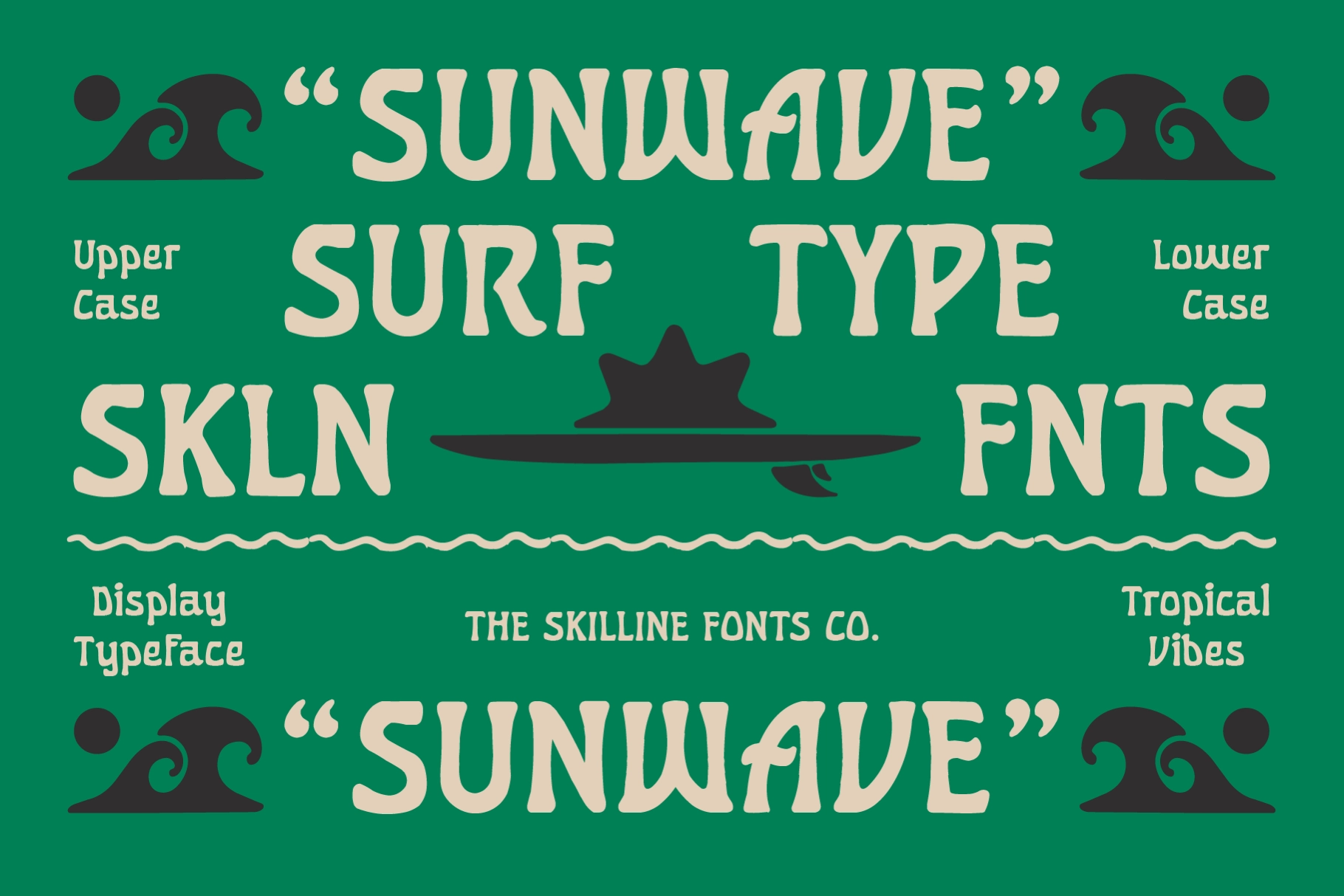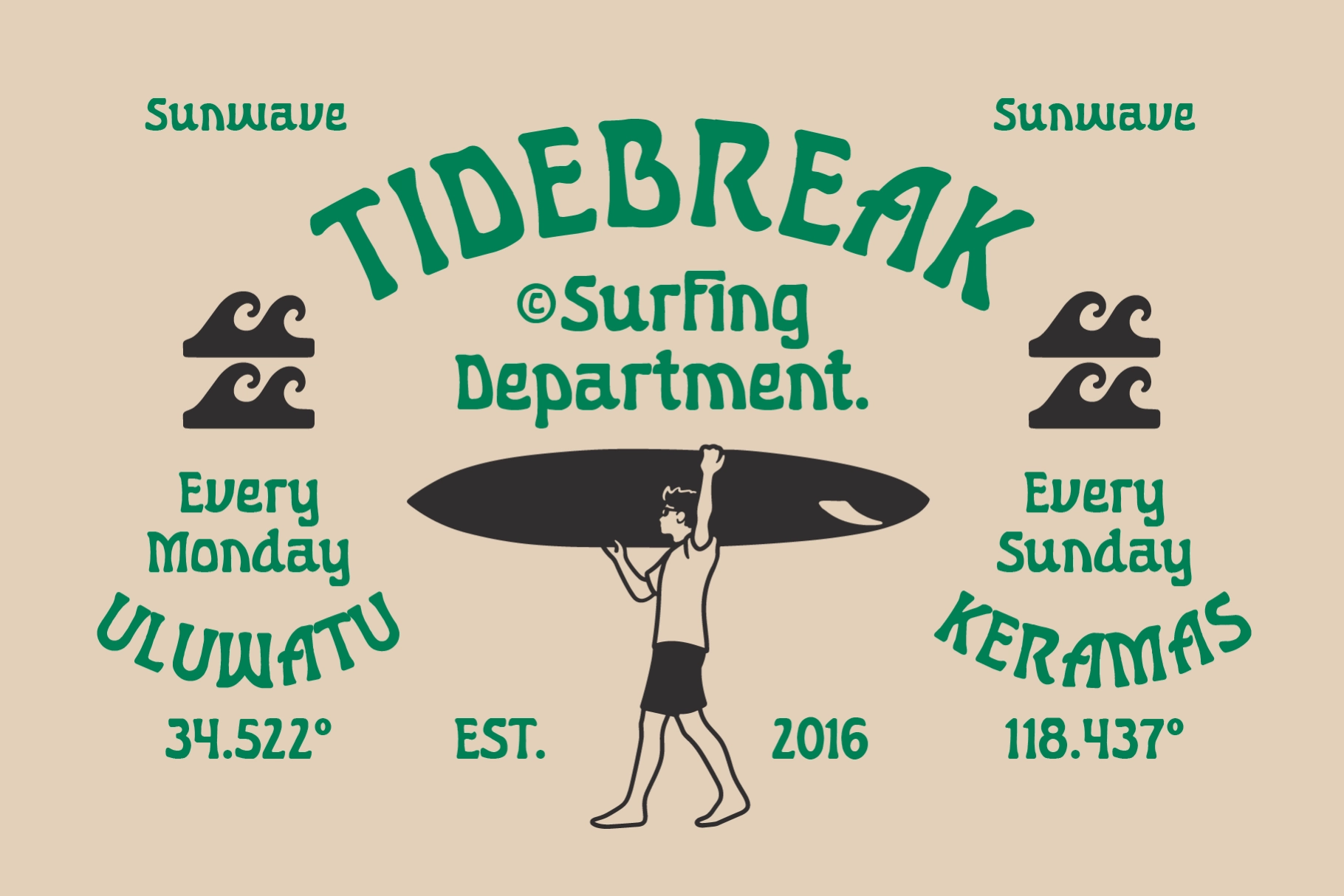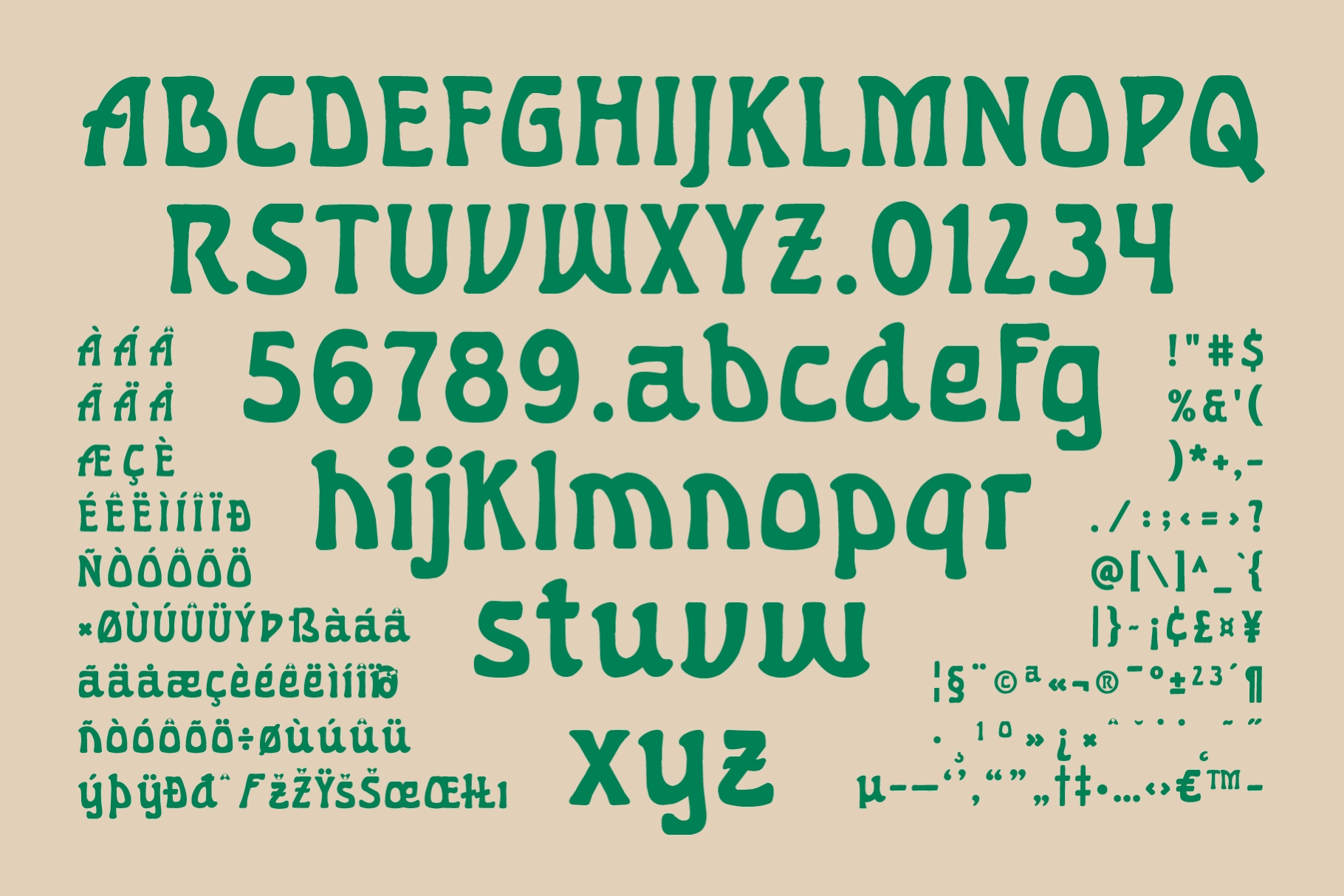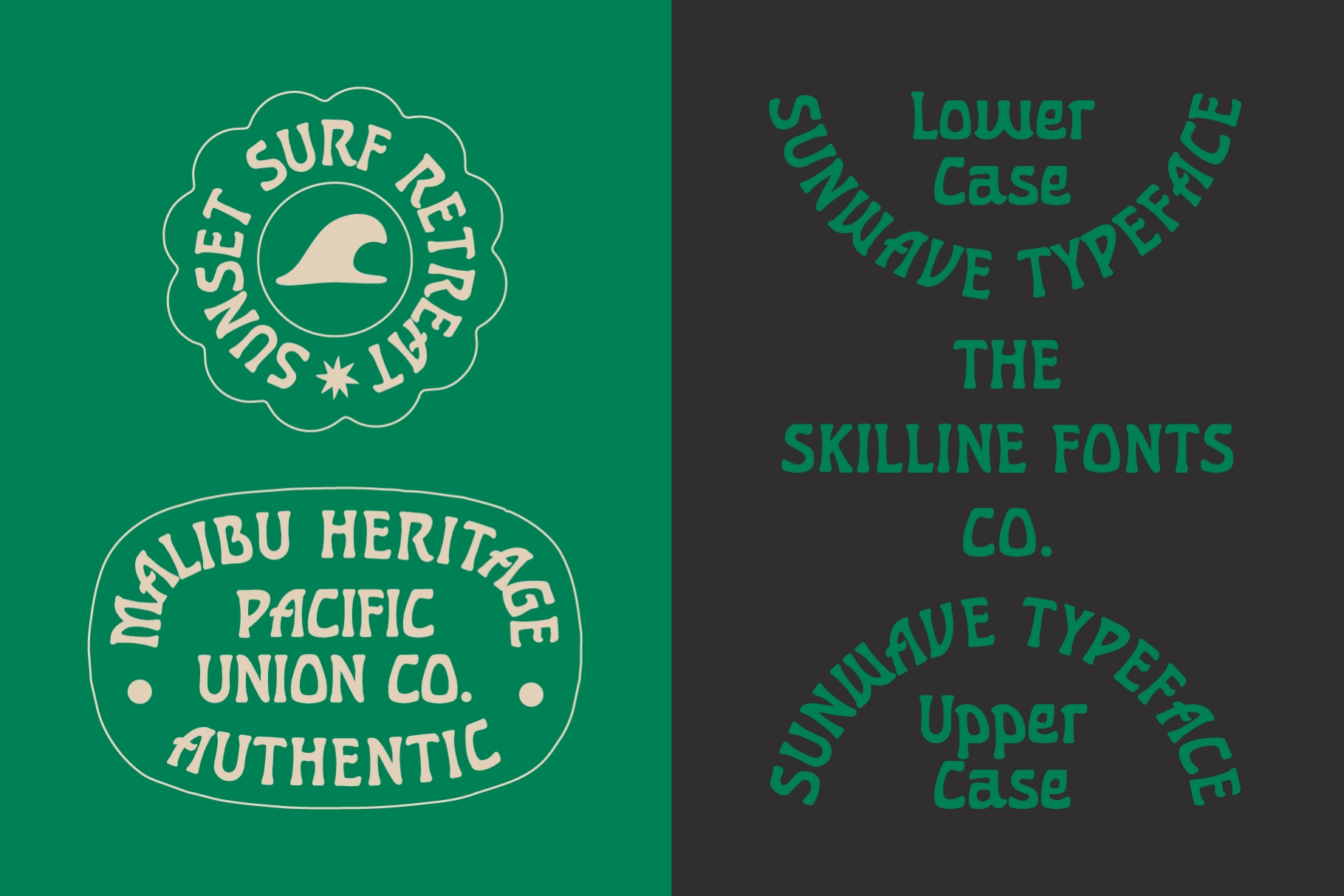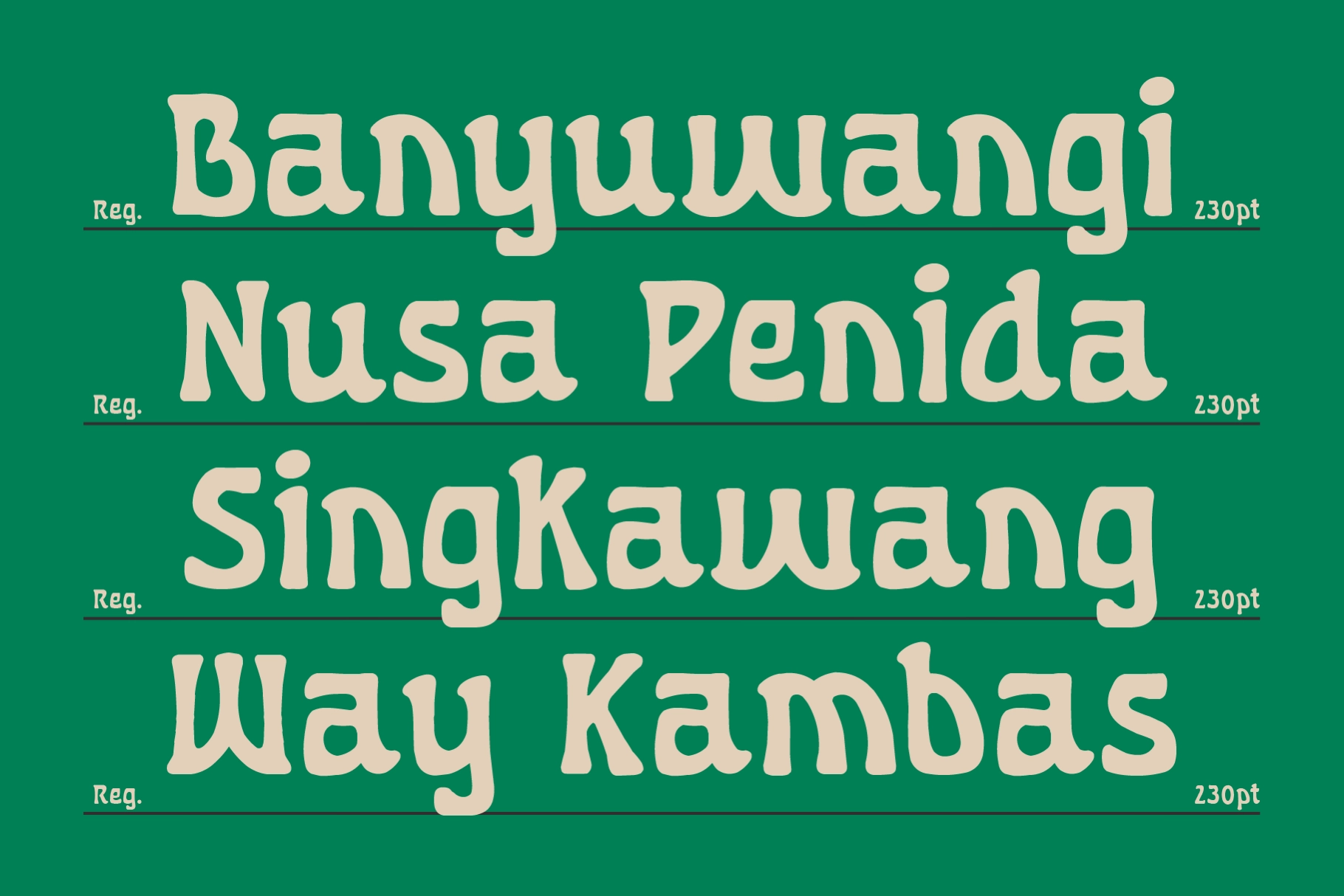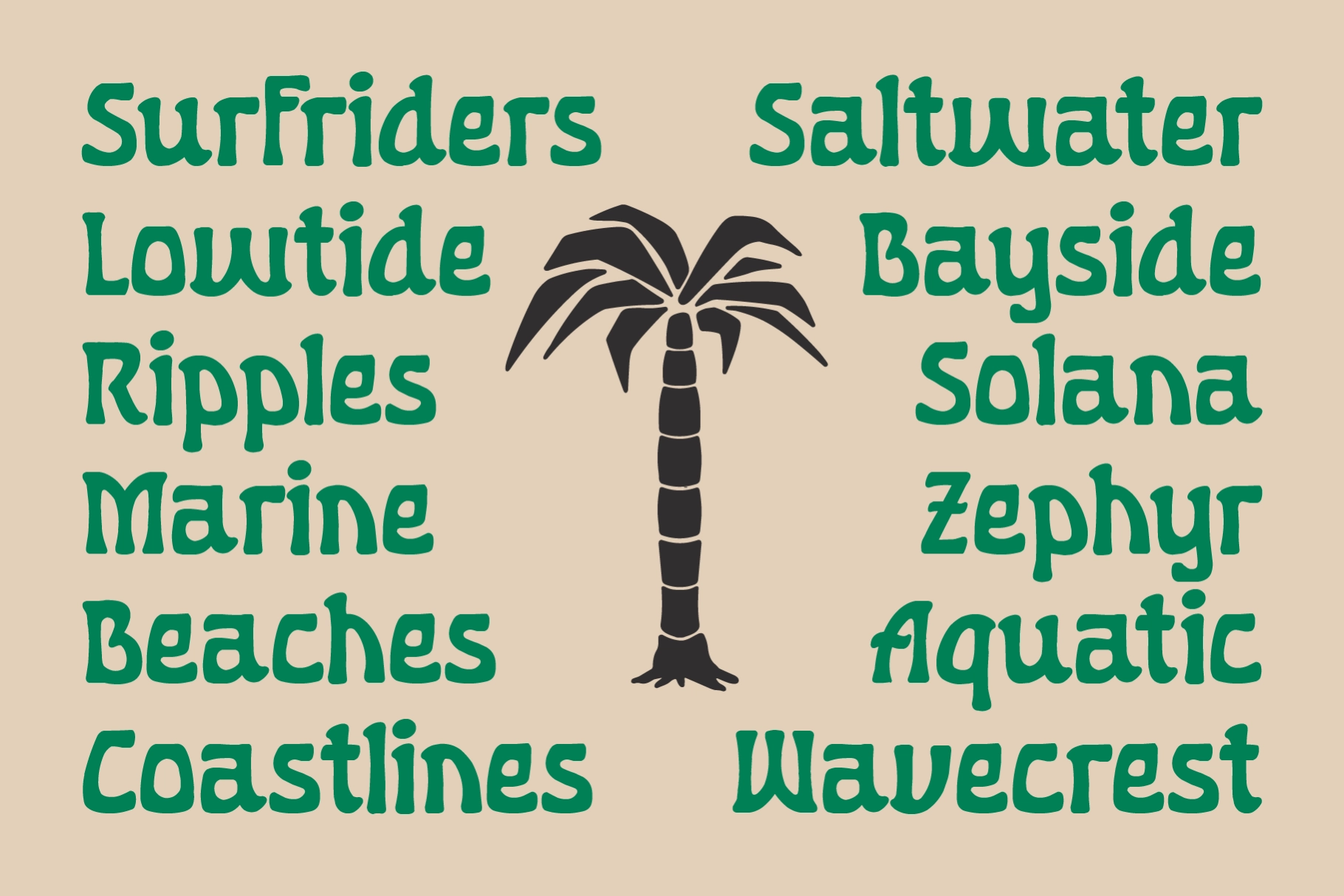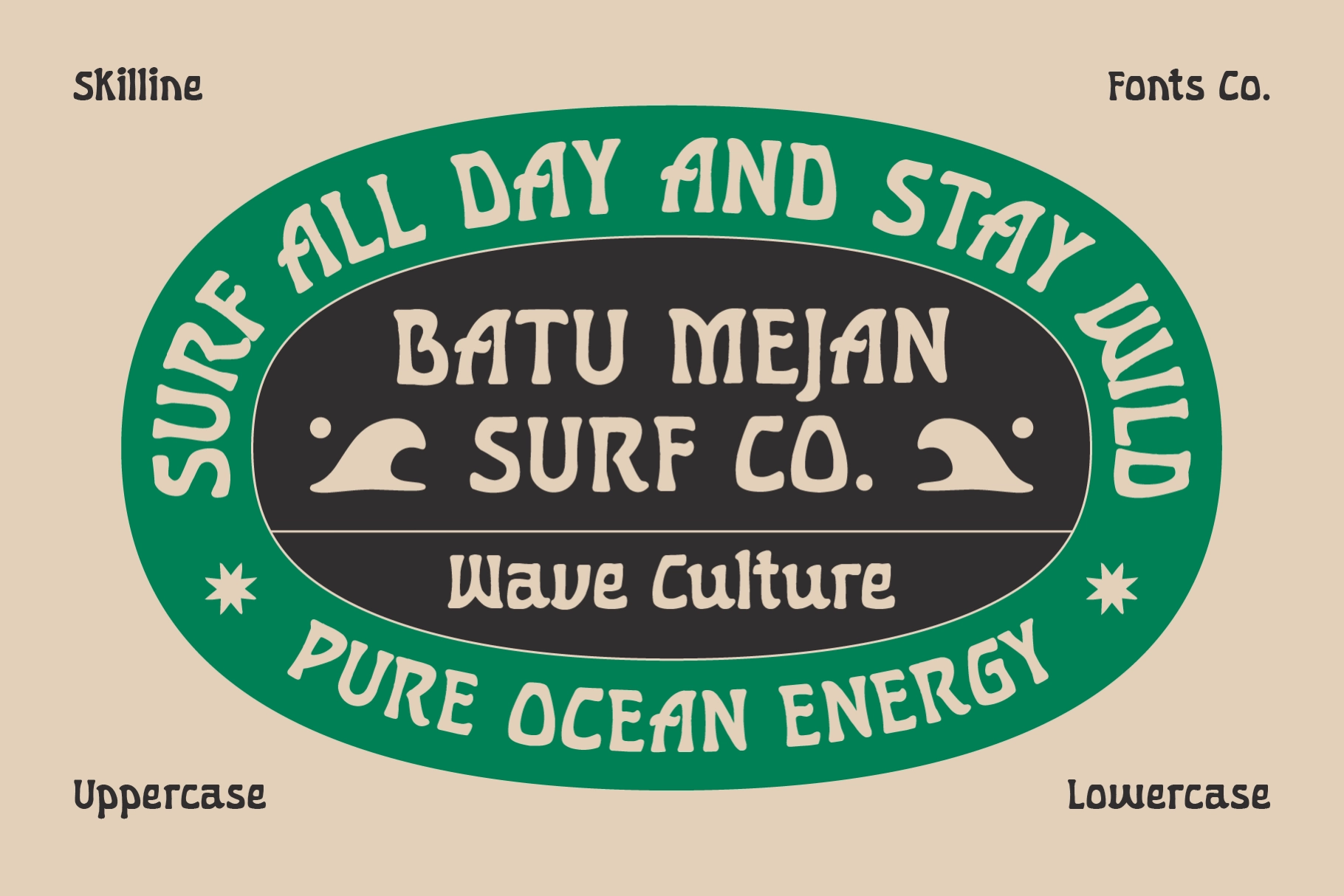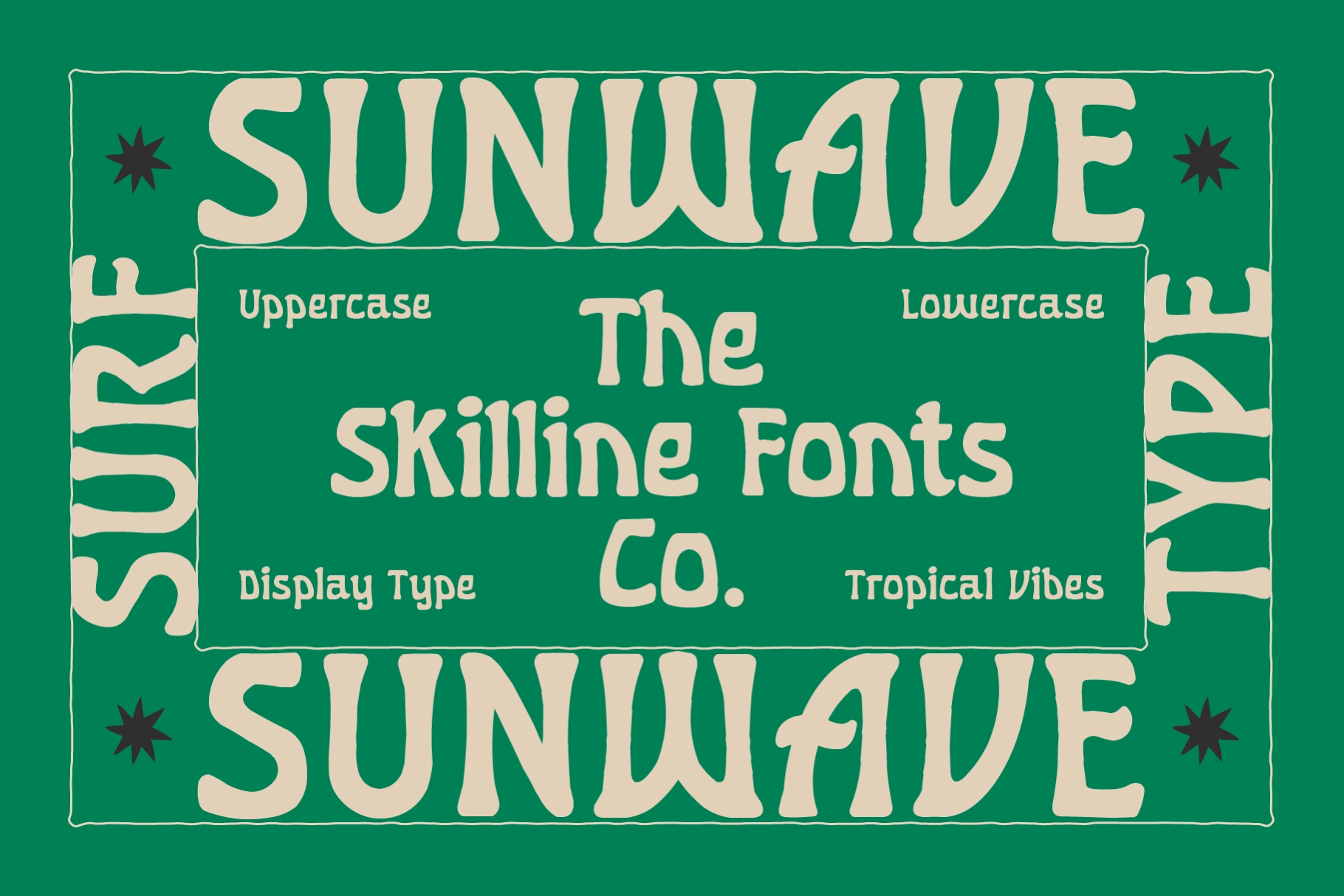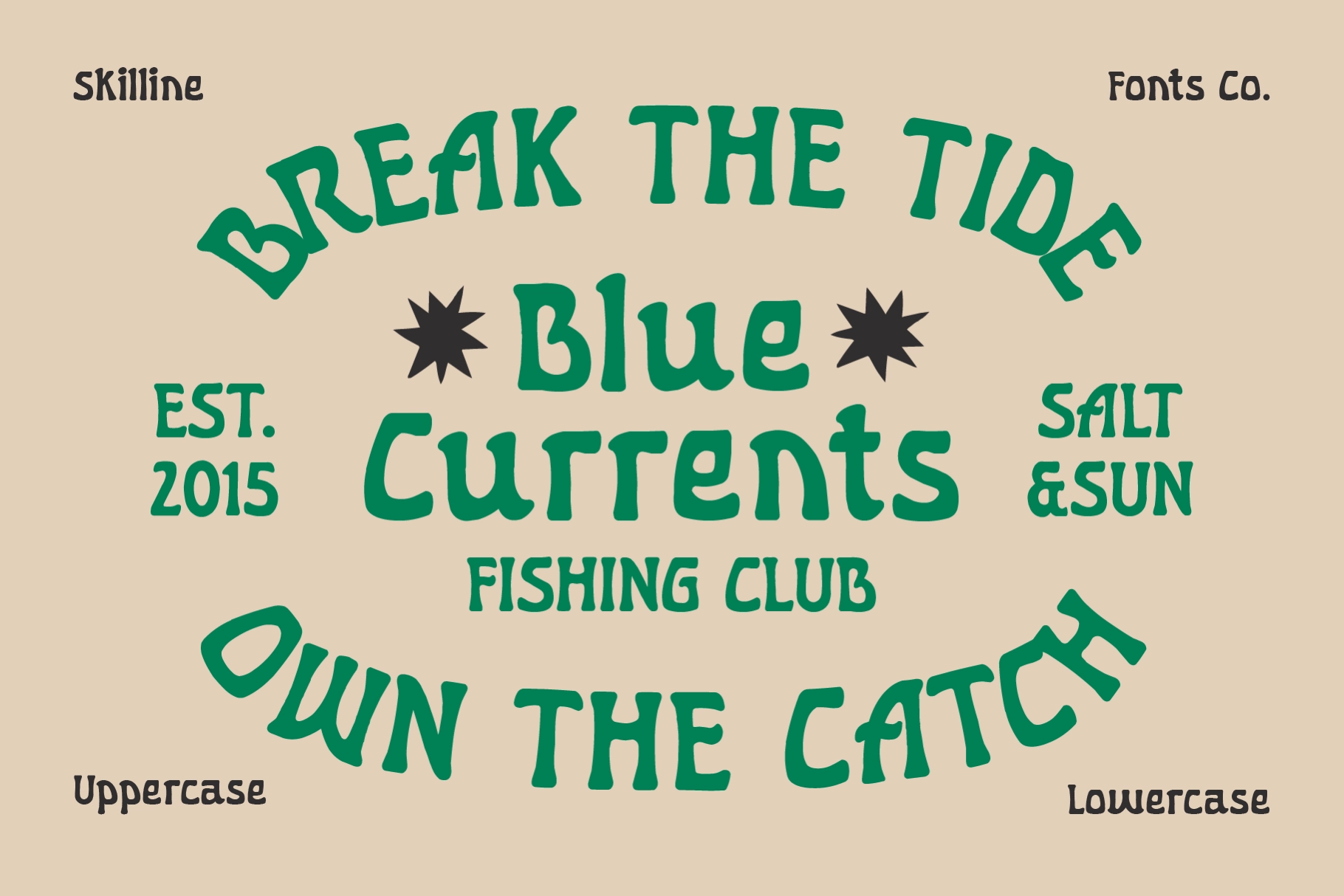
Sunwave - Vintage Surf Display Font
Sunwave is a hand-cut vintage surf display font built from rounded, slightly warped letterforms that recall painted boardwalk signage and hand-lettered surf-shop logos. Thick, bulbous strokes and looping ball terminals give the caps a bouncy, sign-painter rhythm, while single-story lowercase shapes keep the set legible at both poster and label scale.
Sunwave works naturally in beach and surf branding, and its rounded warmth suits general retro-summer projects just as well. Use it for surf shop and swimwear branding, tropical restaurant menus, travel and resort posters, vintage badge logos, packaging labels, band and event flyers, and retro editorial headlines.
Uppercase & lowercase;
Numerals, punctuation & symbols;
Multilingual support.